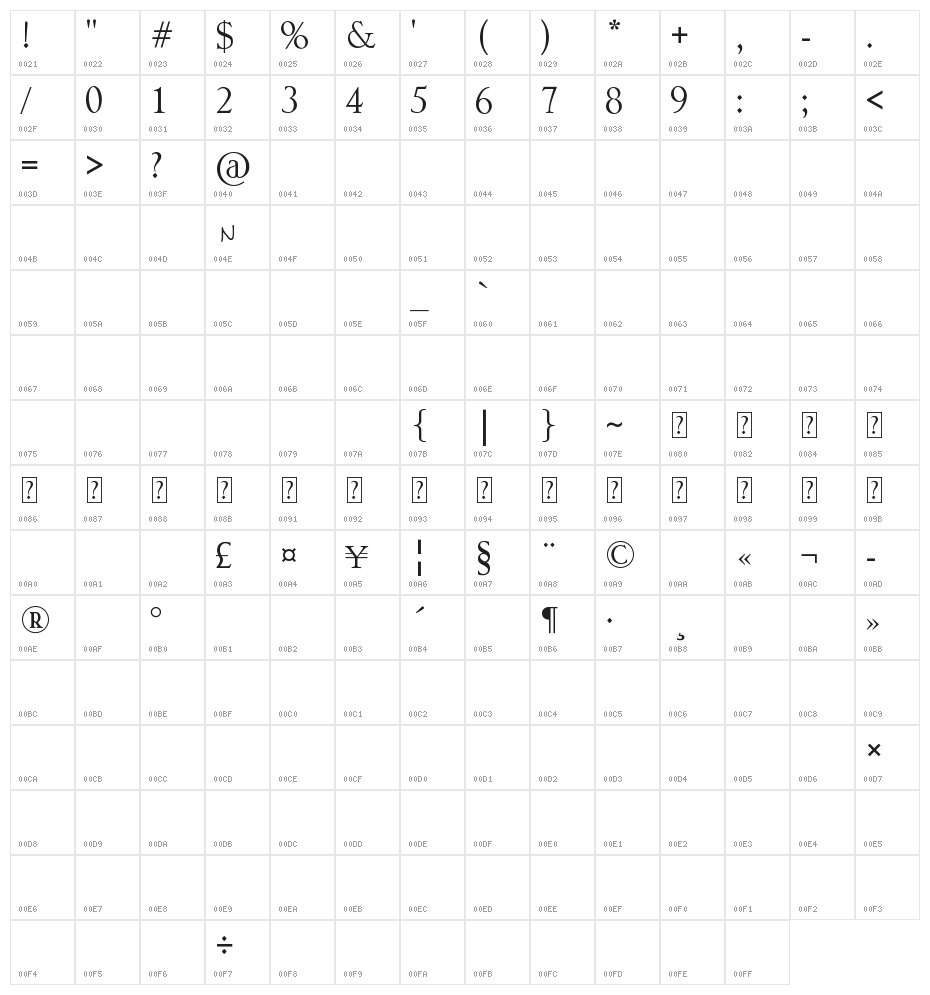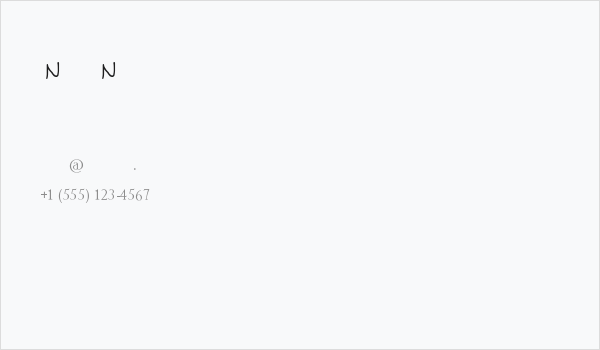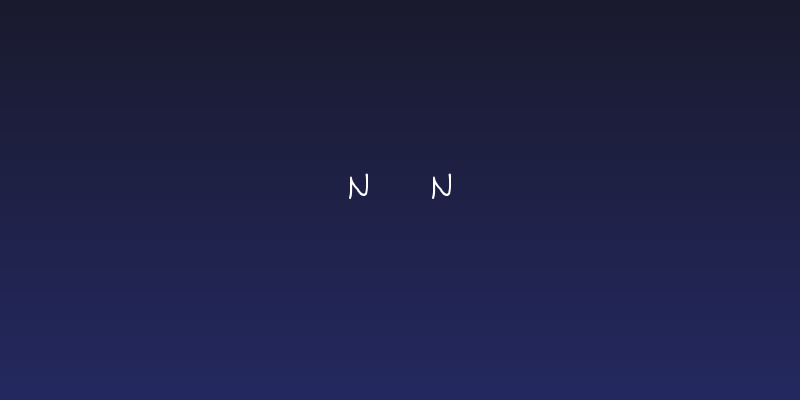
NUN Font
NUN Description
This font exhibits a classic serif style with elegant and refined strokes. The characters are well-balanced, featuring a harmonious blend of thick and thin lines that enhance readability while maintaining a sophisticated appearance. The numerals are distinct and clear, making them suitable for both text and numerical data. Special characters are designed with precision, ensuring consistency across the entire typeface. The overall aesthetic is timeless, making it versatile for various design applications.
CategoriesSerif
Overall StyleClassic
Proposed ProjectsIdeal for editorial design, book covers, formal invitations, and branding materials that require a touch of elegance.